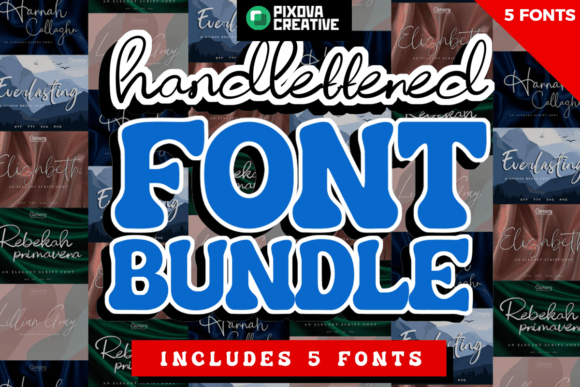
Handlettered Script Bundle Font
About the Handlettered Script Bundle Font
This bundle excels in projects requiring a touch of elegance and personality, such as wedding invitations, logos for boutiques, or short-form quotes on social media. Its handcrafted feel makes it unsuitable for large blocks of body text or UI elements where readability is paramount. Avoid using it for lengthy paragraphs or website content.
For optimal visual harmony, pair these scripts with clean sans-serif fonts like Open Sans or Lato for a modern feel, or with a classic serif like Garamond or Merriweather for a more traditional aesthetic. A geometric sans-serif could also create a striking contrast, depending on the desired effect.
The overall personality is sophisticated yet approachable, conveying a sense of handcrafted quality and warmth. The varied styles within the bundle allow for flexibility in expressing different facets of a brand’s identity.
Handlettered Script Bundle Font Usage Examples
Handlettered Script Bundle Font Example